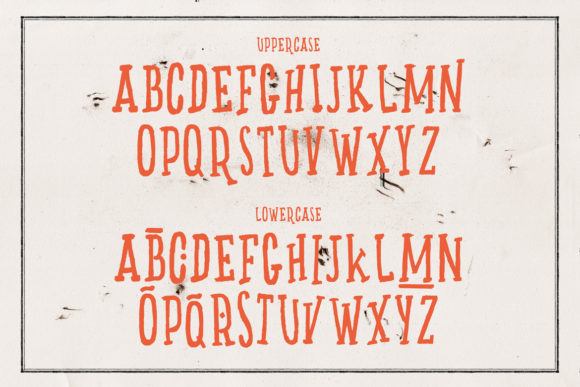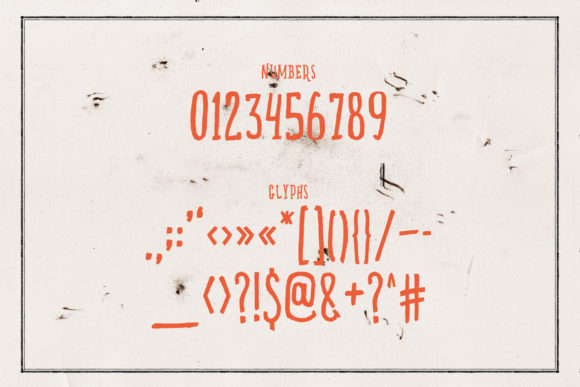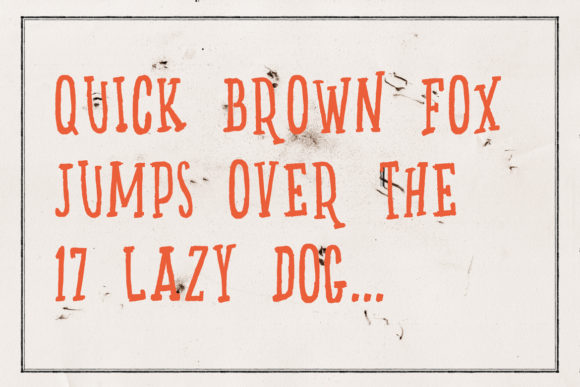
Bushwhack Font: A Quirky Serif Font for Creative Projects
Bushwhack is a unique and interesting serif font that has been gaining popularity among designers and crafters. A little bit quirky, this font is a great choice for a wide variety of contexts, from creative projects to branding and marketing materials. In this article, we’ll explore the characteristics of Bushwhack font, its uses, and why it’s a great addition to any designer’s toolkit.
What is Bushwhack Font?
Bushwhack is a serif font, which means it has small lines or flourishes at the ends of the letters. This font is characterized by its distinctive and unusual letterforms, which give it a quirky and charming personality. The font is designed to be highly legible, making it perfect for use in a variety of contexts, from body text to headings and titles.
Key Features of Bushwhack Font
So, what makes Bushwhack font so special? Here are some of its key features:
• Unique letterforms: Bushwhack font has a distinctive and quirky style that sets it apart from other serif fonts.
• High legibility: Despite its unusual design, Bushwhack font is highly legible, making it perfect for use in body text and other applications where readability is key.
• Versatility: Bushwhack font can be used in a wide range of contexts, from creative projects to branding and marketing materials.
• Elegant and refined: Despite its quirky personality, Bushwhack font has an elegant and refined feel that makes it perfect for use in high-end designs.
Uses of Bushwhack Font
Bushwhack font is a versatile font that can be used in a wide range of contexts. Here are some ideas for using Bushwhack font:
• Branding and marketing materials: Bushwhack font is a great choice for logos, business cards, and other marketing materials.
• Creative projects: Bushwhack font is perfect for use in creative projects, such as art journals, scrapbooking, and other craft projects.
• Web design: Bushwhack font can be used in web design to add a touch of personality and whimsy to a website.
• Print design: Bushwhack font is a great choice for print design, including brochures, flyers, and other materials.
Tips for Using Bushwhack Font
Here are some tips for using Bushwhack font effectively:
• Use it sparingly: Bushwhack font is a distinctive font, so it’s best to use it sparingly to avoid overwhelming the reader.
• Pair it with other fonts: Bushwhack font can be paired with other fonts to create a unique and interesting design.
• Experiment with different sizes: Bushwhack font can be used in a variety of sizes, from small body text to large headings.
• Have fun: Bushwhack font is a fun and playful font, so don’t be afraid to experiment and have fun with it!
Bushwhack font is a unique and interesting serif font that is perfect for designers and crafters looking to add a touch of personality and whimsy to their projects. With its distinctive letterforms, high legibility, and versatility, Bushwhack font is a great choice for a wide range of contexts. Whether you’re working on a creative project, branding and marketing materials, or web design, Bushwhack font is a great addition to any designer’s toolkit.